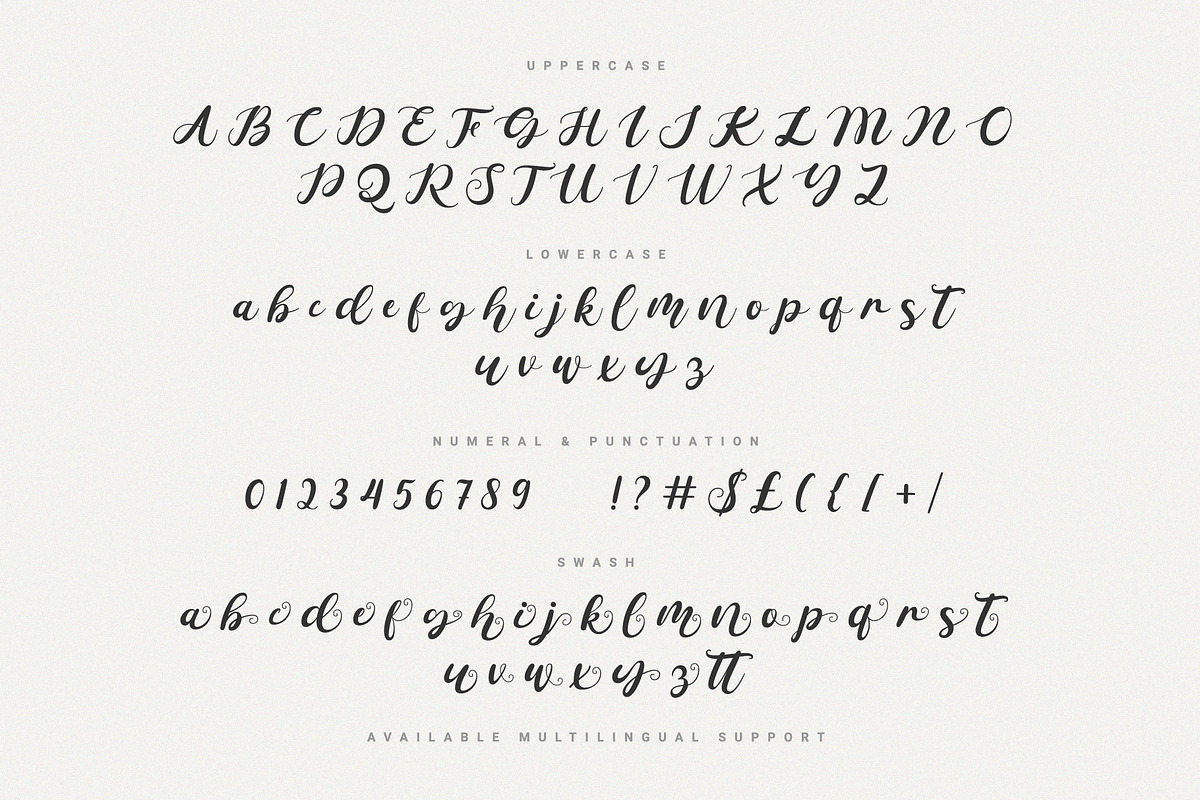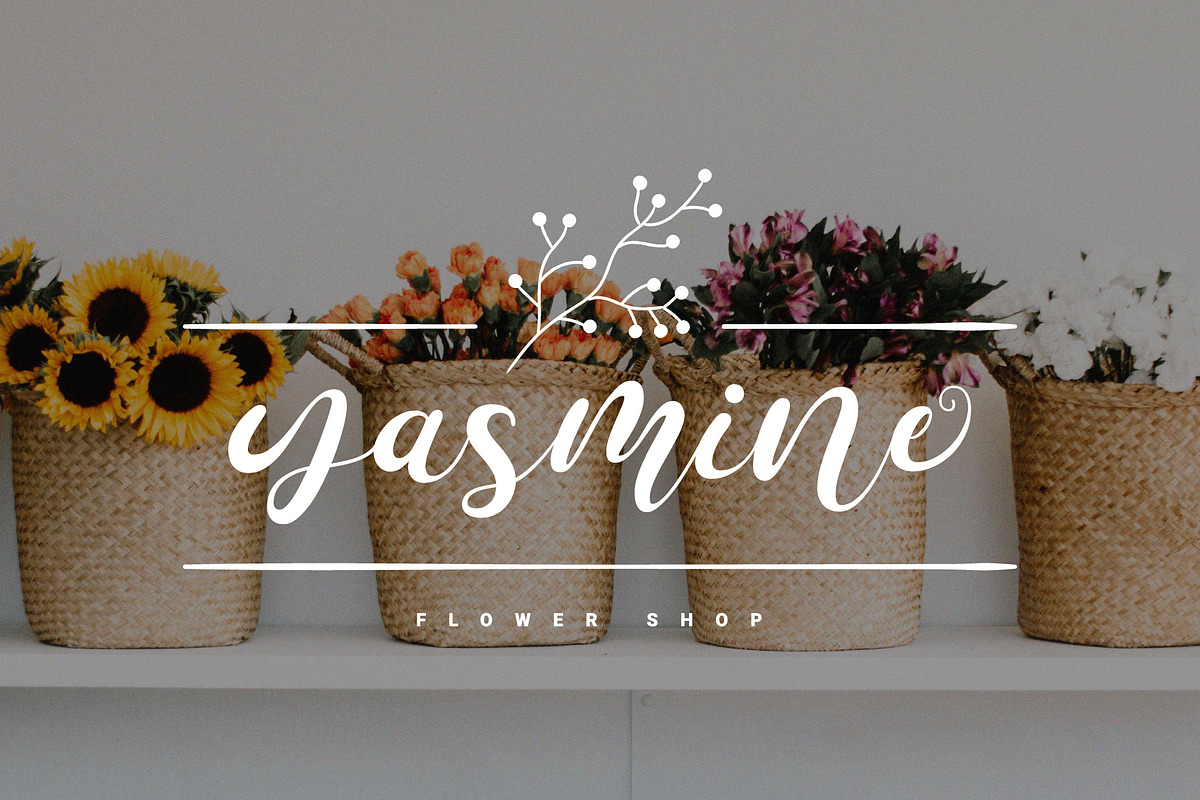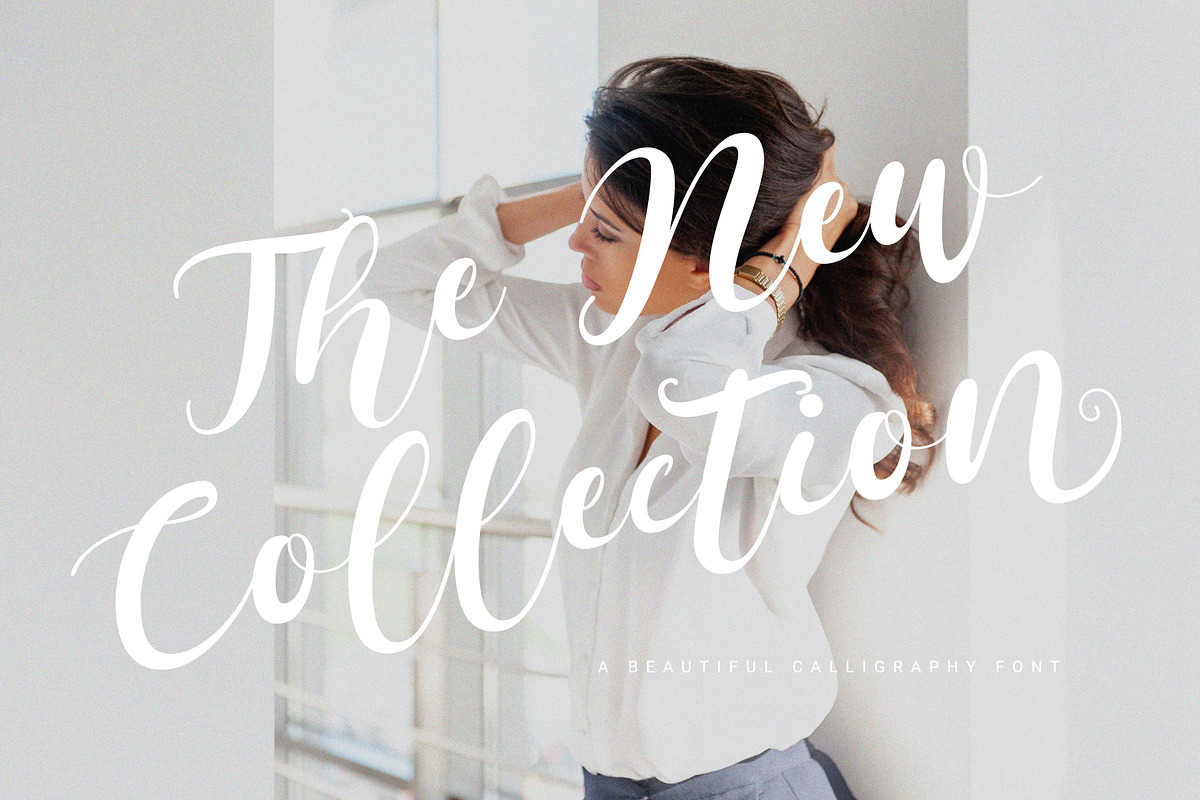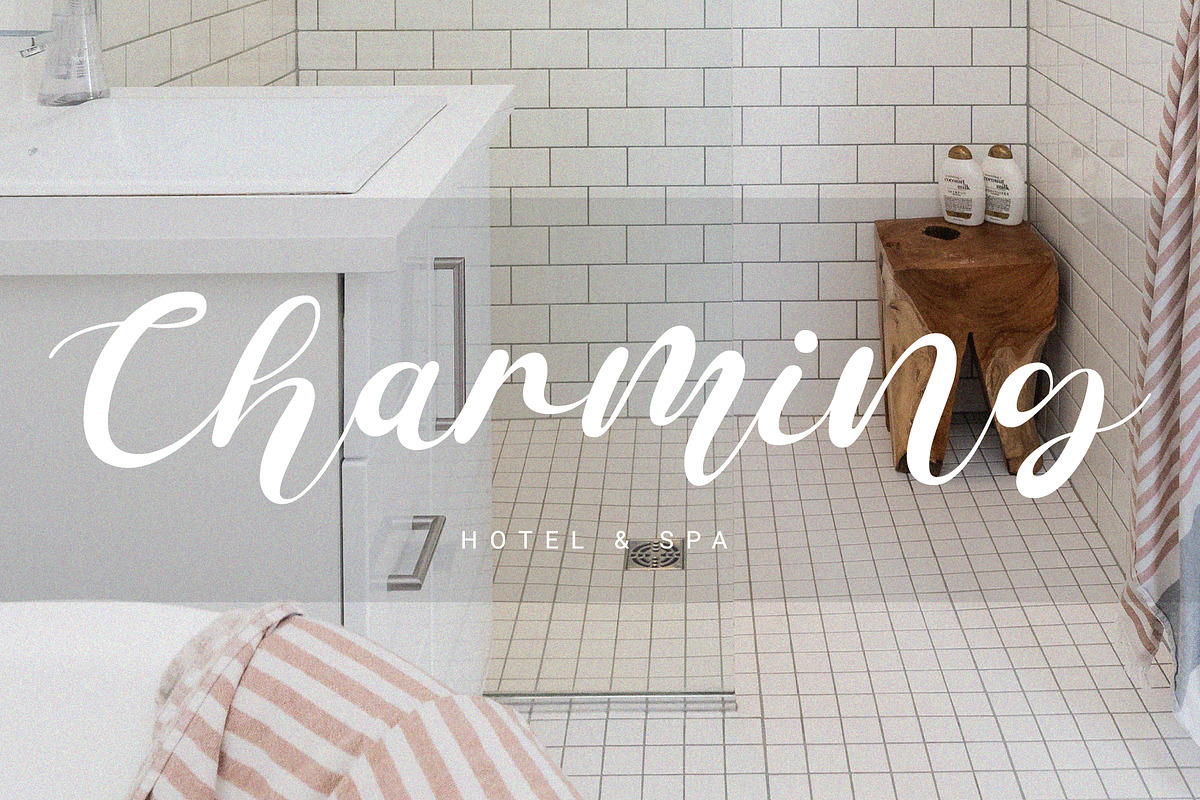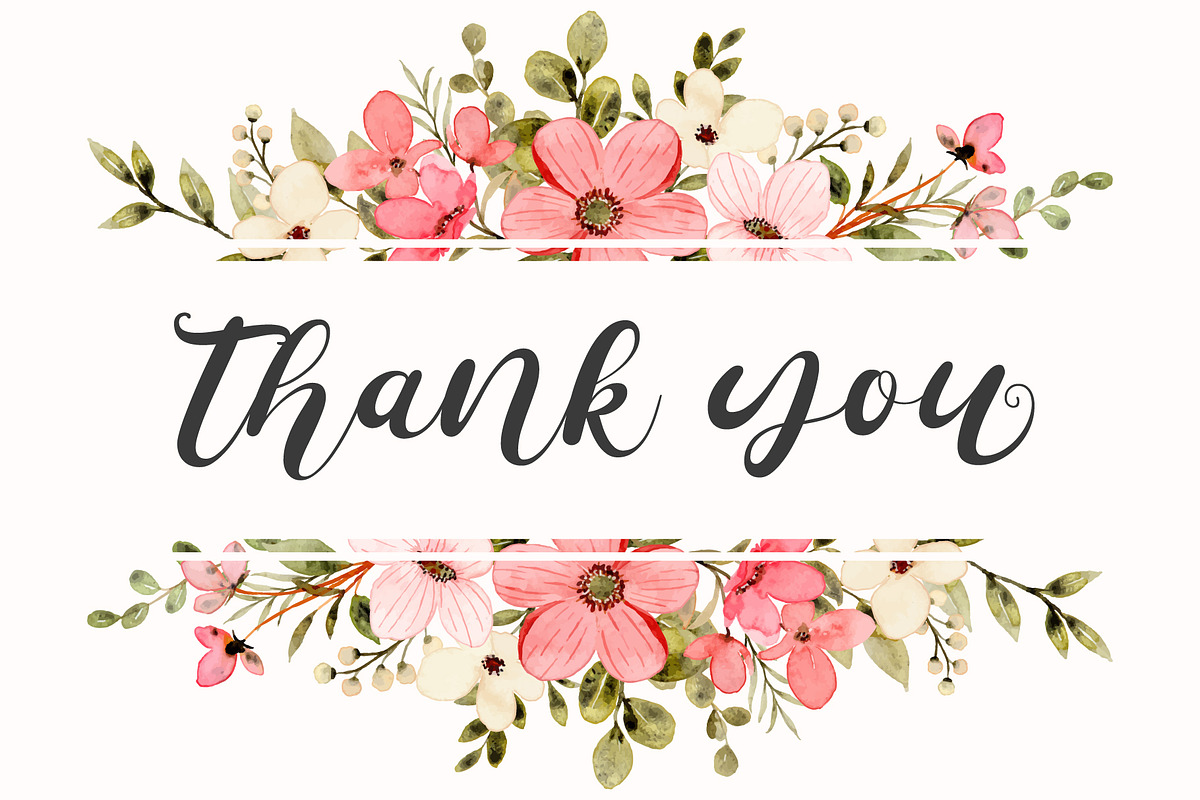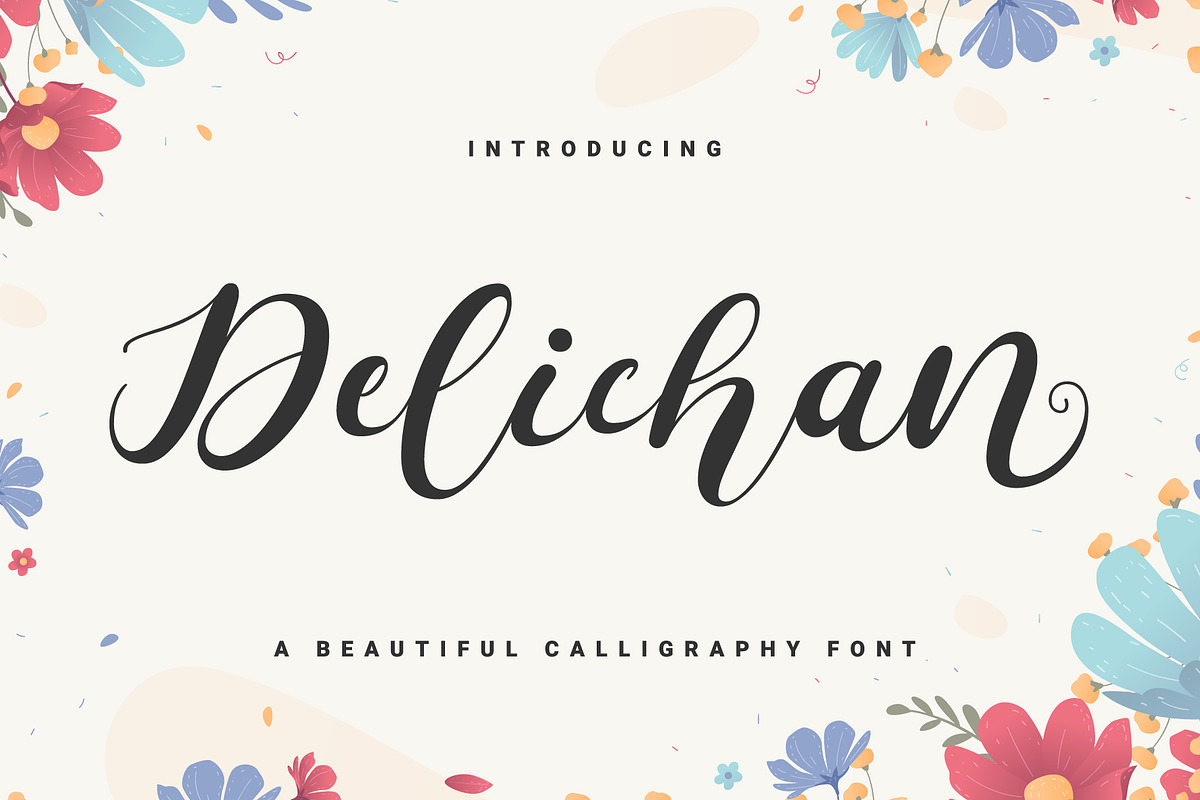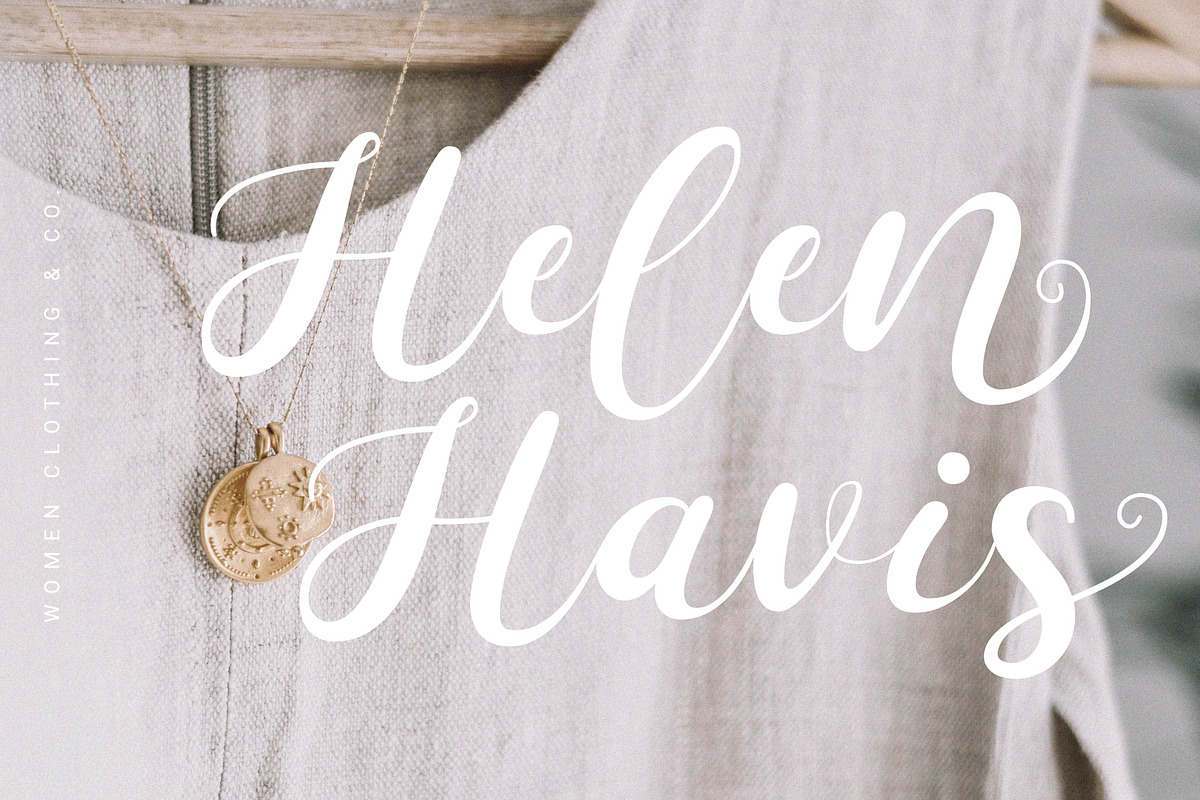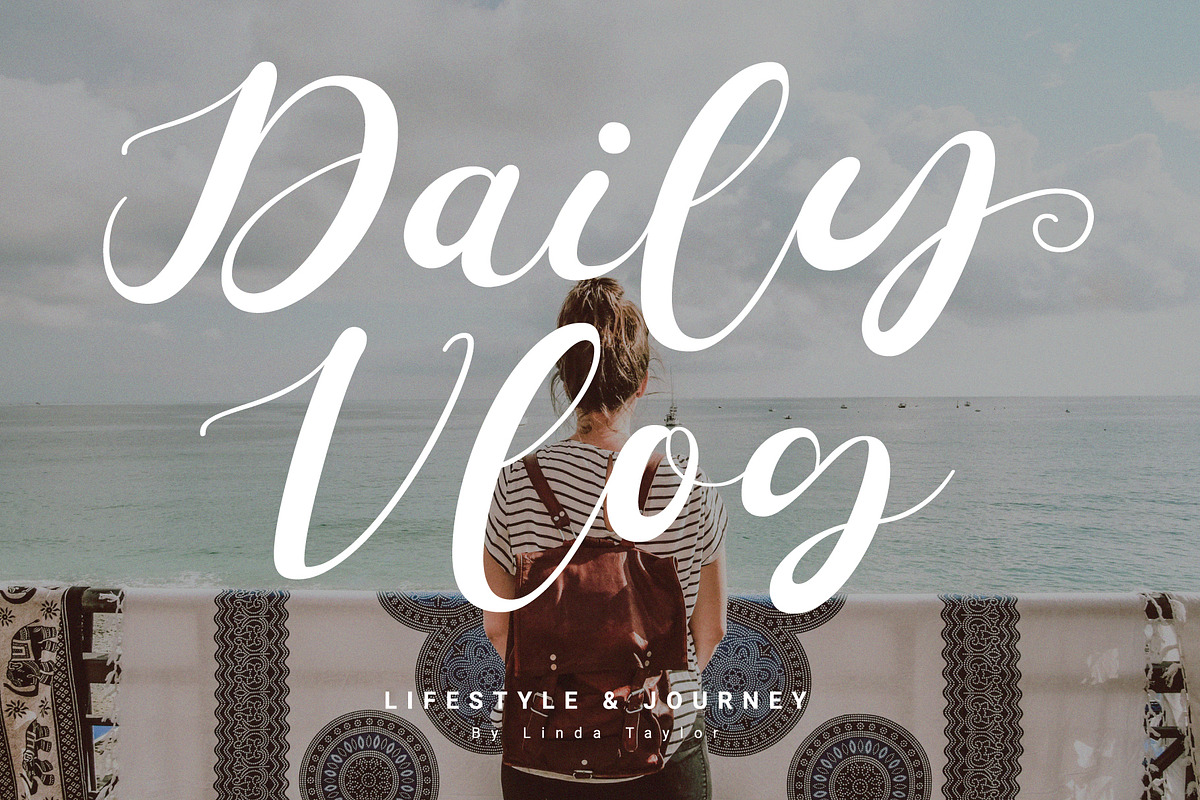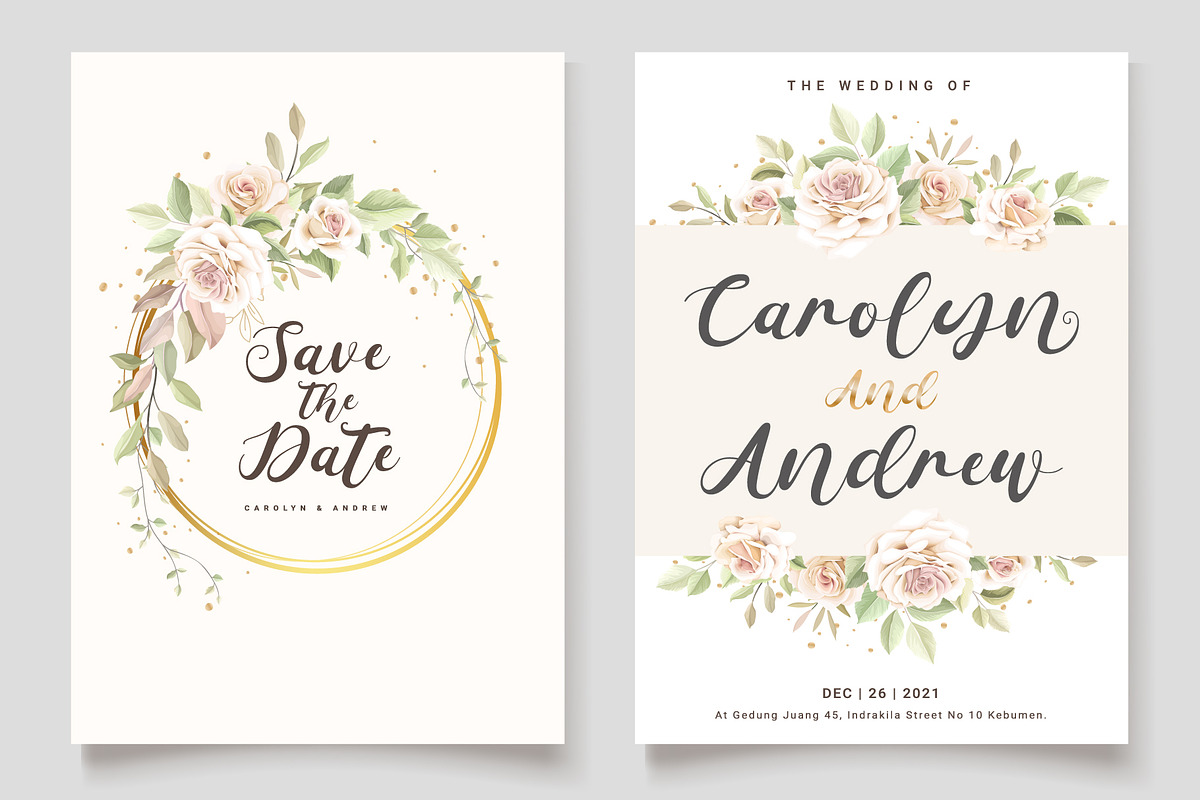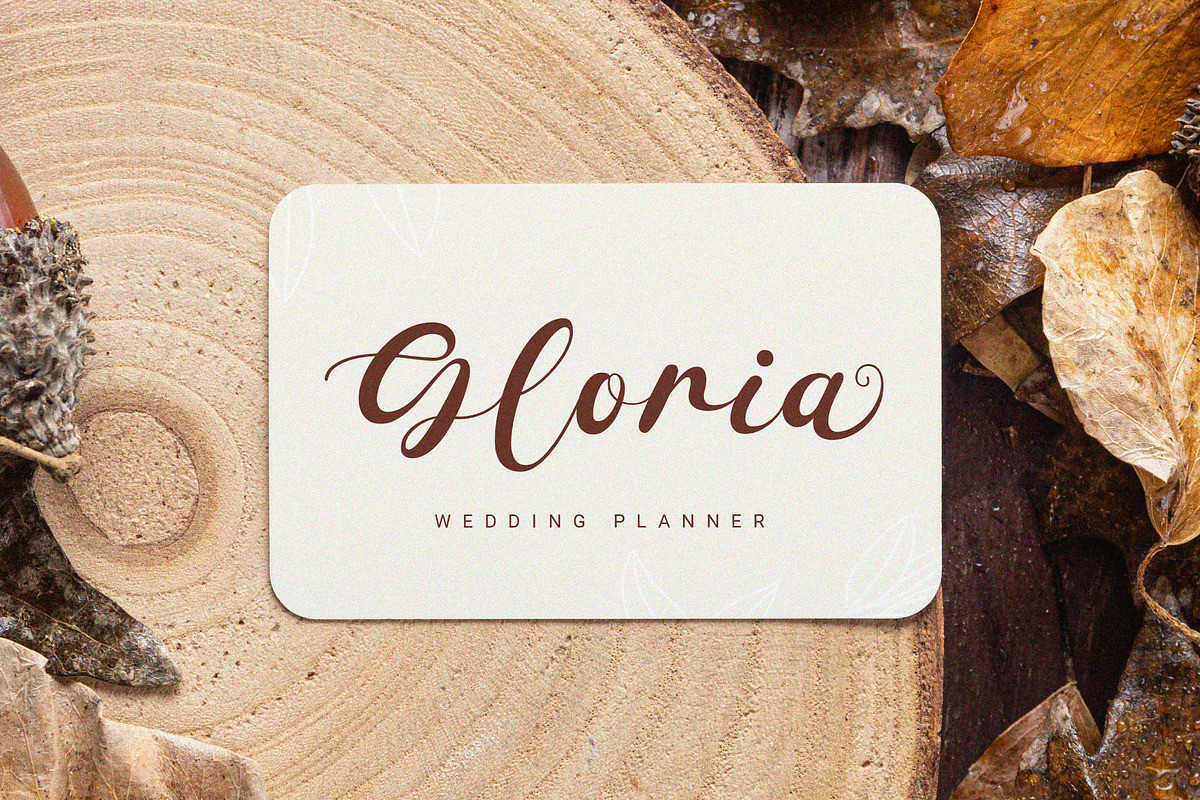
Delichan - A Beautiful Calligraphy
Delichan: Beautiful and modern fonts that are so special to use in your projects. It is suitable for wedding invitation designs, social media posts, blogs, crafts, quotes etc.
Features: Uppercase, Lowercase, Numeral, Punctuation, Multilingual, Ligature, Alternates & PUA Encoded.